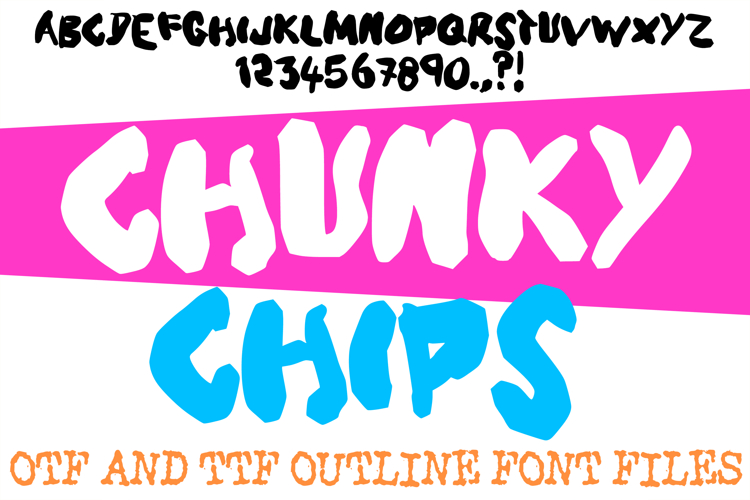
The Chunky Chips Font is a playful and energetic display typeface featuring heavy, irregular block shapes that look like they were joyfully chopped or cut out by hand. With its spirited, jagged outlines and solid, high-visibility forms, this font is an exceptional choice for designers crafting youth branding, quirky sticker sheets, comic book dialogue, and eye-catching packaging for snacks or candies.
The design celebrates the beauty of imperfection, where each character has its own unique, non-uniform angles that mimic broken cookie pieces or crunchy potato chips. Whether you are building a bold identity for a kids' brand or designing dynamic graphics for a fun social media campaign, this font brings a spunky, unpolished charm that breaks away from rigid geometry.
Why Your Designs Will Stand Out
Playful Irregular Geometry: The uneven, chopped edges give the alphabet a dynamic, hand-hewn rhythm that instantly injects a fun personality into text layouts.
Solid High-Impact Forms: A thick, heavy visual weight ensures that headlines and titles pop off the page, maintaining excellent legibility even from a distance.
Hand-Cut Paper Aesthetic: The raw, non-uniform outlines offer an authentic, tactile quality that feels creative, approachable, and delightfully messy.
Versatile Urban Charm: Perfectly tailored for lighthearted, energetic projects—from skateboarding stickers and casual apparel prints to vibrant event flyers.